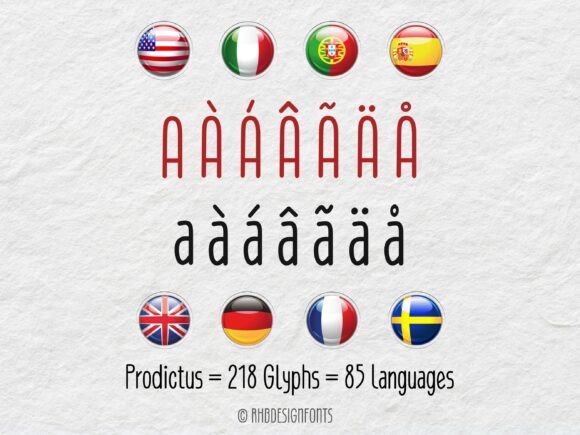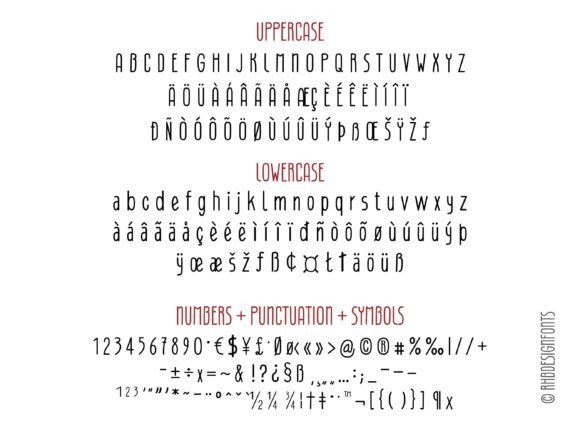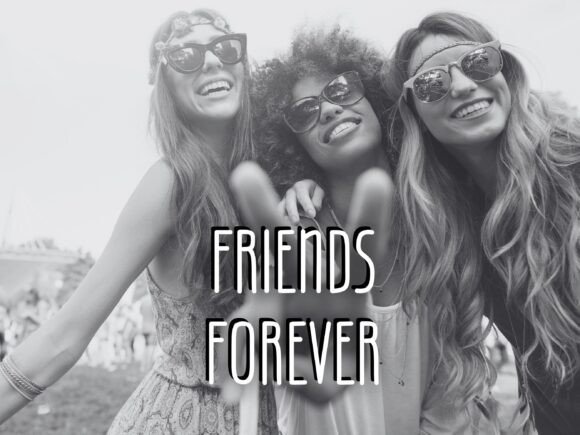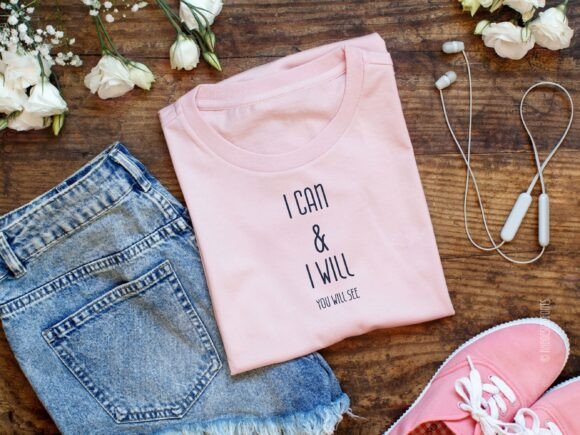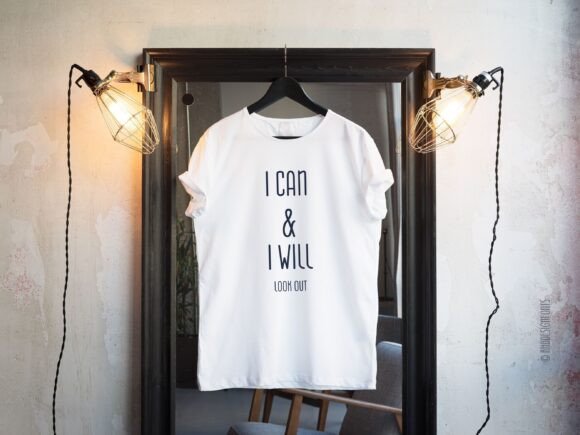
Introduction to Rhb Prodictus Font Font
Fonts play a crucial role in design, and the Rhb Prodictus Font font is a typeface that brings both character and versatility to any project. Whether you’re working on a branding project, a website, or a print design, the Rhb Prodictus Font font offers a unique style that can elevate your work.
Introducing βRHB Prodictusβ, a slim, sleek, and stylish handwritten font designed with global appeal.
It boasts multilingual capabilities, supporting a multitude of languages including English, German, French, Italian, Spanish, Portuguese, Swedish, among others This versatile typeface thrives in its ability to transform ordinary designs into extraordinary ones.
Key Features of Rhb Prodictus Font Font
Why Choose Rhb Prodictus Font Font?
The Rhb Prodictus Font font is more than just a typeface β it’s a design tool that helps you communicate your message with style and clarity. Its unique character set and versatile design make it suitable for a wide range of applications, from elegant invitations to bold headlines.
With its carefully crafted letterforms and balanced proportions, the Rhb Prodictus Font font ensures readability and visual appeal across all mediums.
What makes Rhb Prodictus Font font special?
The Rhb Prodictus Font font stands out with its unique design, exceptional readability, and versatility across various design applications.